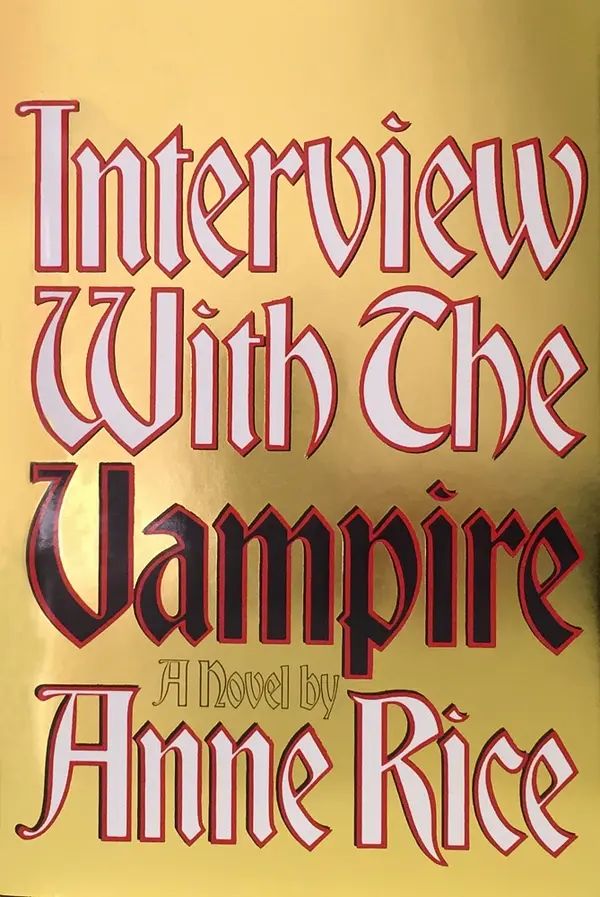
Interview with the Vampire Font
BookInterview with the Vampire is a gothic horror and vampire novel by American author Anne Rice, published in 1976. A film adaptation was released in 1994 and a television series based on the novel premiered in 2022.
The cover of the first edition features a blackletter called Bradley, which was produced in 1895 by ATF based on the lettering by William Henry Bradley. Digital revivals include Bradley from Profonts, Fyne Fish from Nick’s Fonts, Bradley DJR from David Jonathan Ross, and the freebie Bradley Gratis by Justin Callaghan.